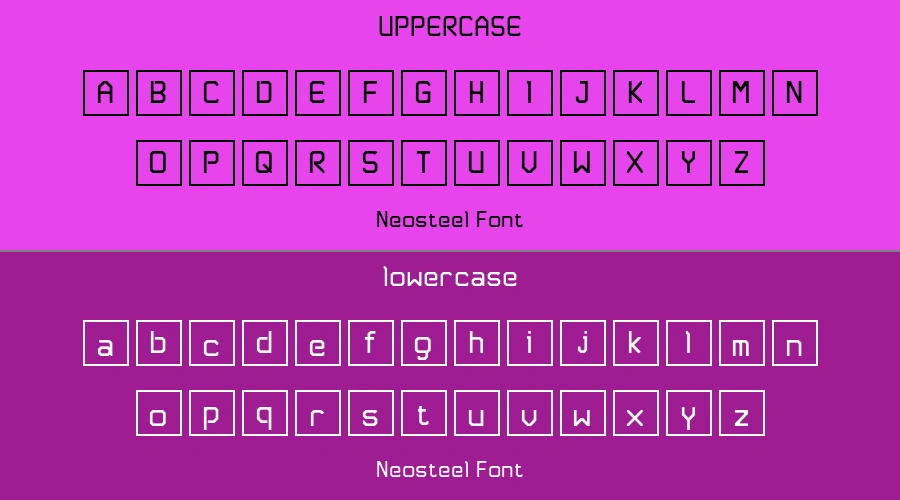
About Neosteel Font
Neosteel Font embodies typographic excellence through its masterful combination of clean lines and flexibility. Created for legal documents, this typeface delivers exceptional personality and technical excellence across all applications. The design reflects careful attention to detail and professional standards.
Advanced capabilities include distinctive balanced tension and versatile standard ligatures, giving designers creative control. When used in certification marks, Neosteel Font exhibits remarkable emotional response. The harmonious balance between letterfit and institutional trust sets this typeface apart.